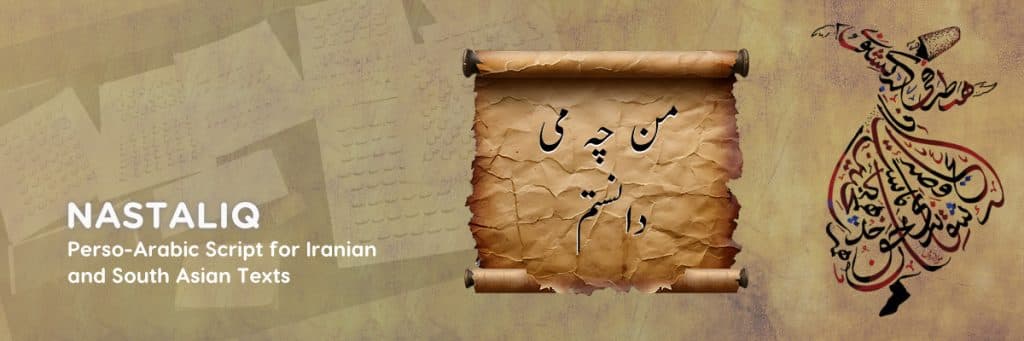
Calligraphy has always been regarded as one of the most valued artistic accomplishments of the Islamic world. Since the 11th century, this project led to the development of a series of organized scripts in the Arabic language used to write both religious as well as secular texts. In Iran, a nation with its rich literary legacy, these scripts were used both for writing in Persian and Arabic until the 14th century, Nastaliq is an example of that.
Around 1350, a Perso-Arabic script, Nastaliq was created and was instantly adopted worldwide for transcribing texts. The short vertical strokes, graceful lines, and beautiful sense of rhythm of Nastaliq made it appropriate for writing Persian & Arabic verses. By 1430, it was used in all around the Persian-speaking world—from Turkey to Delhi and also from Bukhara to Baghdad. Since several decades, it is being used for literary expression in South Asian and Iranian languages.
Nastaliq is an Islamic calligraphy style created by the expert calligrapher Mir ‘Ali Tabrizi. The exact origins of this style are not yet clear. The name represents the combination of two pre-existing styles, ‘Naskh' & ‘Ta’liq’. Even though the early development of Islamic calligraphy was only limited to the Arabic language. However Nastaliq was the 1st style to be developed with the Persian language. Below, we will have a detailed discussion regarding this amazing Perso-Arabic script.
| Attribute | Details |
|---|---|
| Origins | Iran |
| Creator | Mir ‘Ali Tabrizi |
| Inspiration | Combination of Naskh and Ta'liq scripts |
| Significance | Art Form, Perfect for Languages, Cultural Exchange, etc. |
| Features | short vertical strokes, graceful lines, |
| Cultural Impact | Influenced other art forms like tilework, calligraphy, and textile design |
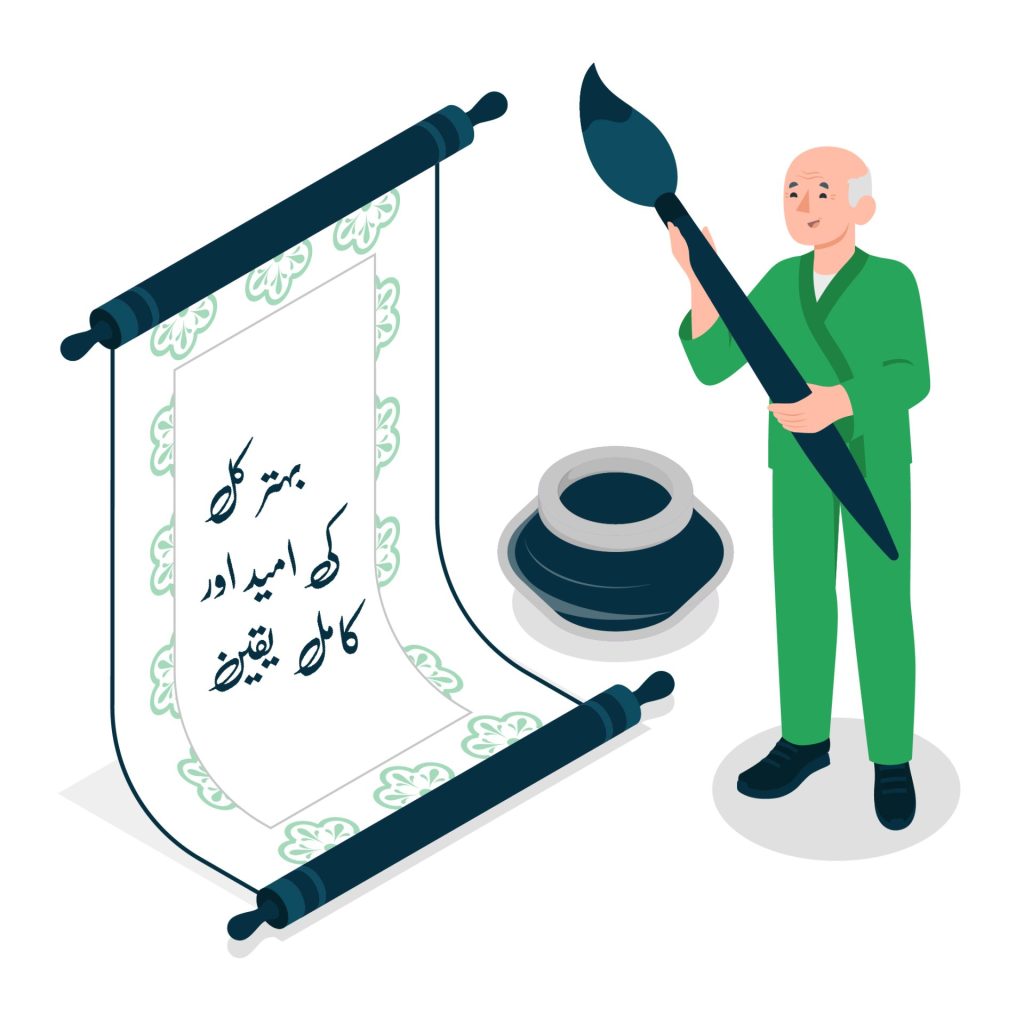
Nastaliq is not just visually attractive rather it served as an influential tool for cultural conversation.
Let’s discuss below why this style has such great importance in the history:
Nastaliq is most used script for daily writing and its legacy will remain alive in every era. Efforts to promote and preserve the art of Nastaliq calligraphy are still being made. Exhibitions as well as digital initiatives make sure that this rich artistic legacy keeps on inspiring future generations. Many well-known names such as Ahmad Jameel Mirza, Syed Manzar Zaidi (Axis SoftMedia), and other font designers have provided us the high-quality of fonts that maintains the elegance of Urdu typo while adding a modern flair. The development of Nastaliq reflects not only a transforming script, but a lively cultural exchange across location and time. From its evolution in Persia to its extensive use in Iran as well as South Asia, Nastaliq remains a demonstration to the ever-lasting power of artistry and beauty in the art of communication.
Nastaliq is not only a script, it is a testament to the rich cultural heritage of Iran and South Asia. The elegance of this script has captured the essence of many languages like Urdu, Persian, Arabic, Kashmiri, etc. Furthermore, the style is widely used for many masterpieces, and its heritage continues to inspire modern calligraphers and artists. The beauty of Nastaliq serves as a reminder of the power of art and language to unite cultures and rise above time.